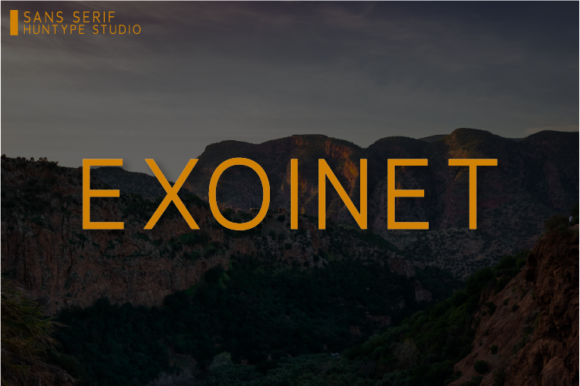
Unleash the magic of Exoinet, a font that will enchant your designs with its ethereal elegance and boundless versatility. Inspired by the mesmerizing beauty of Christmas ornaments, this font captures the essence of the holiday season with its intricate yet understated charm.
As a sans serif typeface, Exoinet exudes a modern and sophisticated aura, while its thin and tall letterforms impart a touch of ethereal grace. The uniform width of its letters lends it an unwavering consistency, making it a perfect choice for a diverse range of design projects.
Whether you seek to craft elegant invitations, create eye-catching branding, or design captivating websites, Exoinet seamlessly adapts to your vision. Its understated yet distinctive presence allows your content to shine, ensuring that your message is conveyed with clarity and sophistication.
With Exoinet, you'll embark on a creative journey where possibilities are limitless. Its versatility knows no bounds, as it effortlessly complements both formal and informal settings. Imagine transforming your invitations into works of art, where each letter dances across the page with an air of understated elegance.
For branding that leaves an unforgettable impression, Exoinet is your perfect ally. Its clean lines and modern aesthetic will elevate your brand's image, creating a lasting connection with your audience. Websites designed with Exoinet radiate an aura of professionalism and sophistication, inviting visitors to engage with your content with ease and delight.
But Exoinet's allure extends far beyond its practical applications. This font has the power to evoke emotions, to stir the imagination, and to add a touch of magic to any project it adorns. Its Christmas-inspired heritage infuses your designs with a sense of warmth and nostalgia, creating a connection that transcends the digital realm.
With Exoinet, you'll discover a font that not only meets your design needs but also captivates the hearts of your audience. Experience the transformative power of this enchanting typeface and let your creativity soar to new heights.